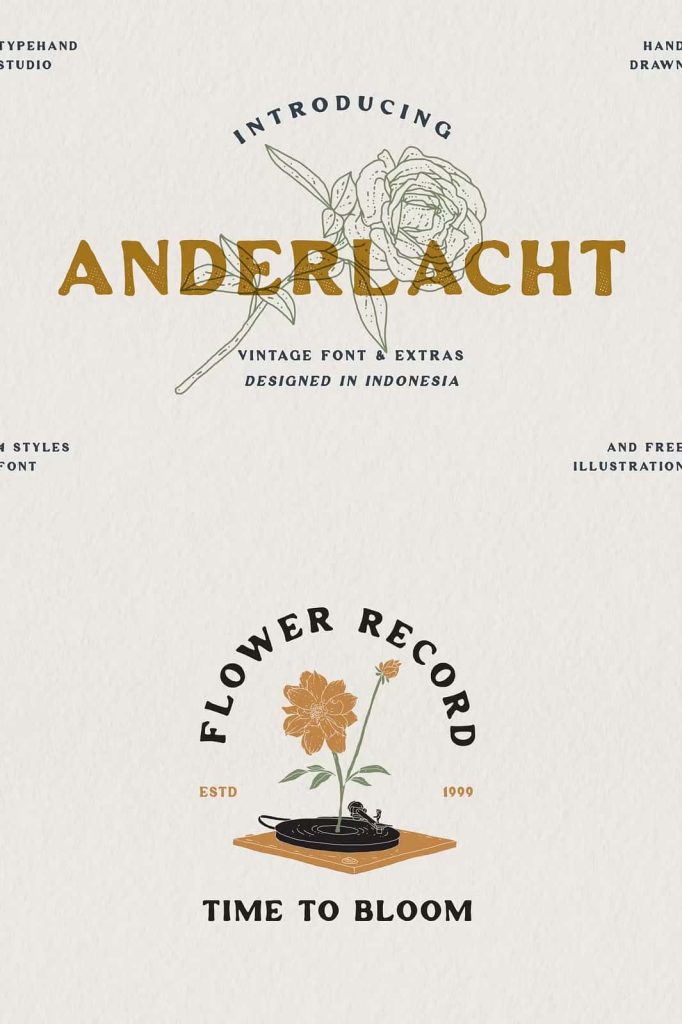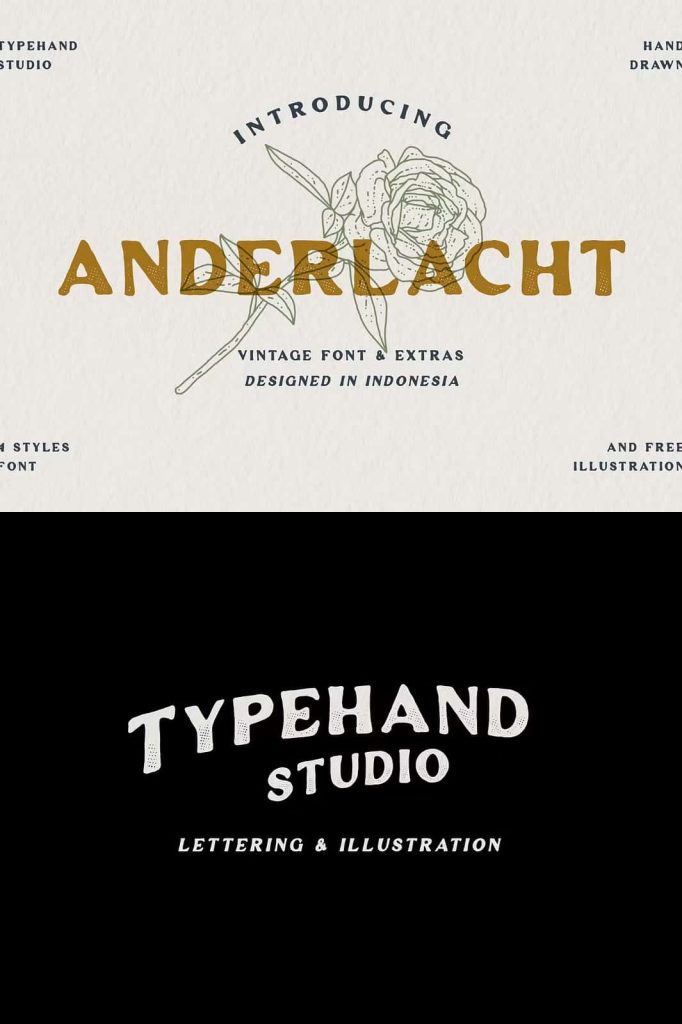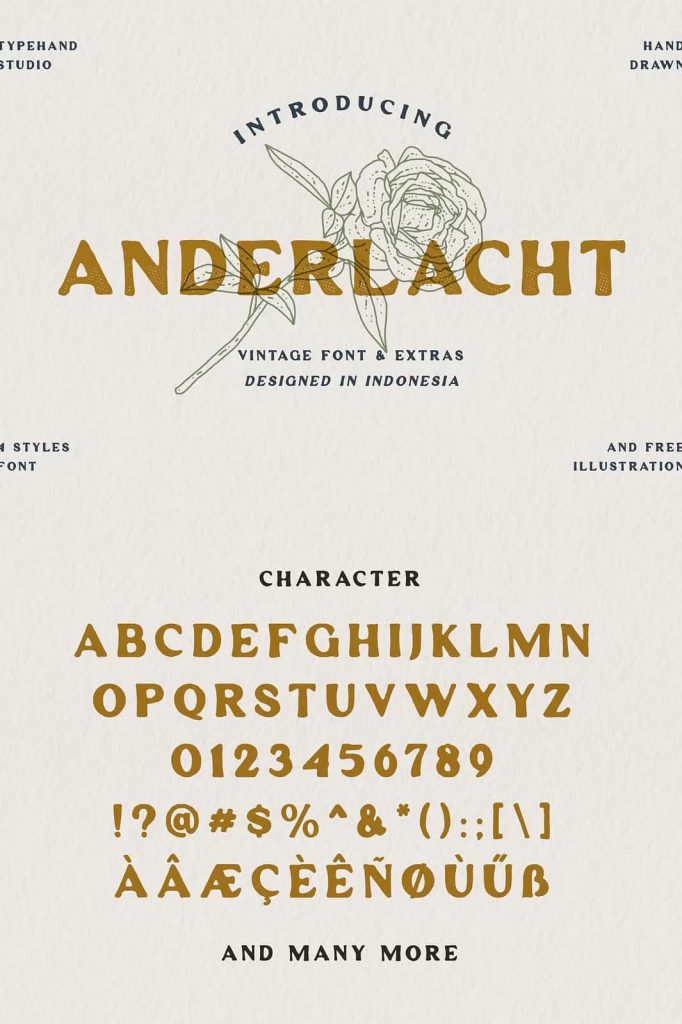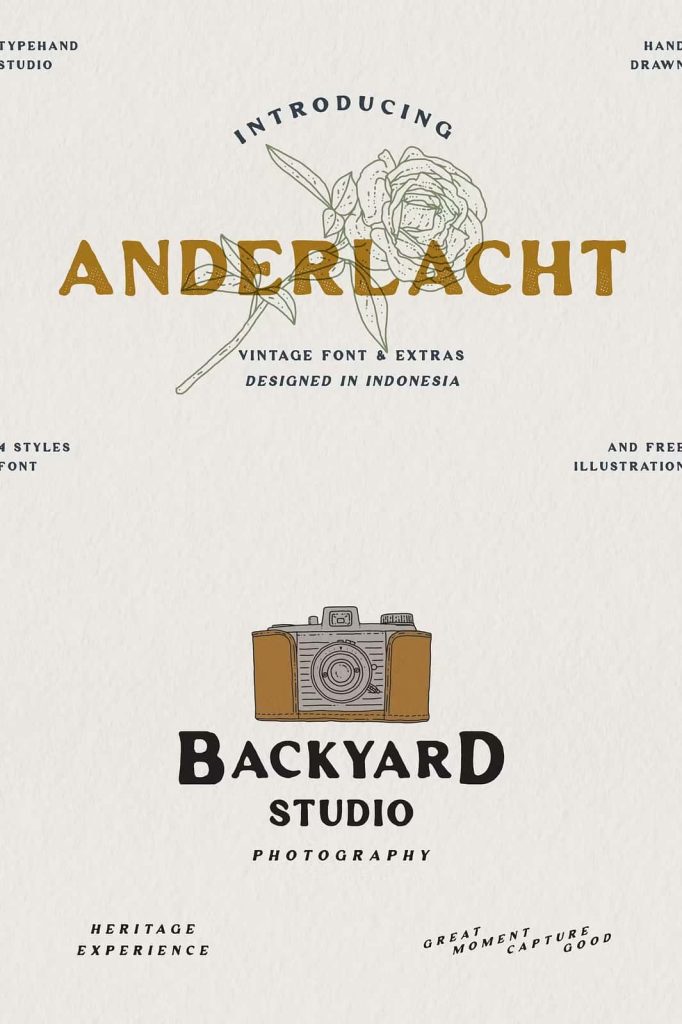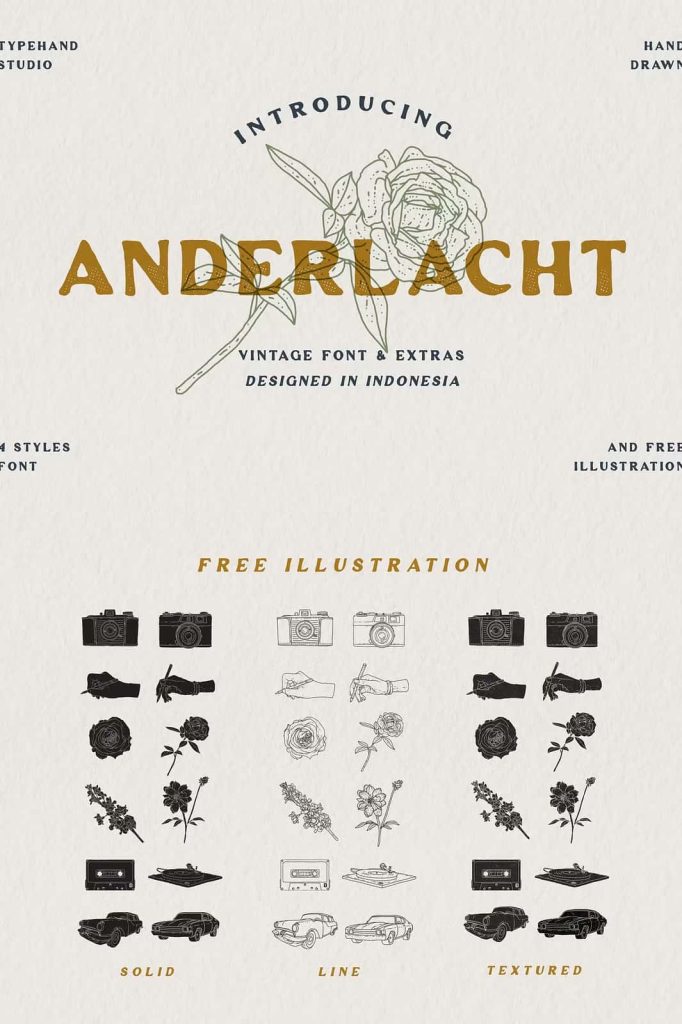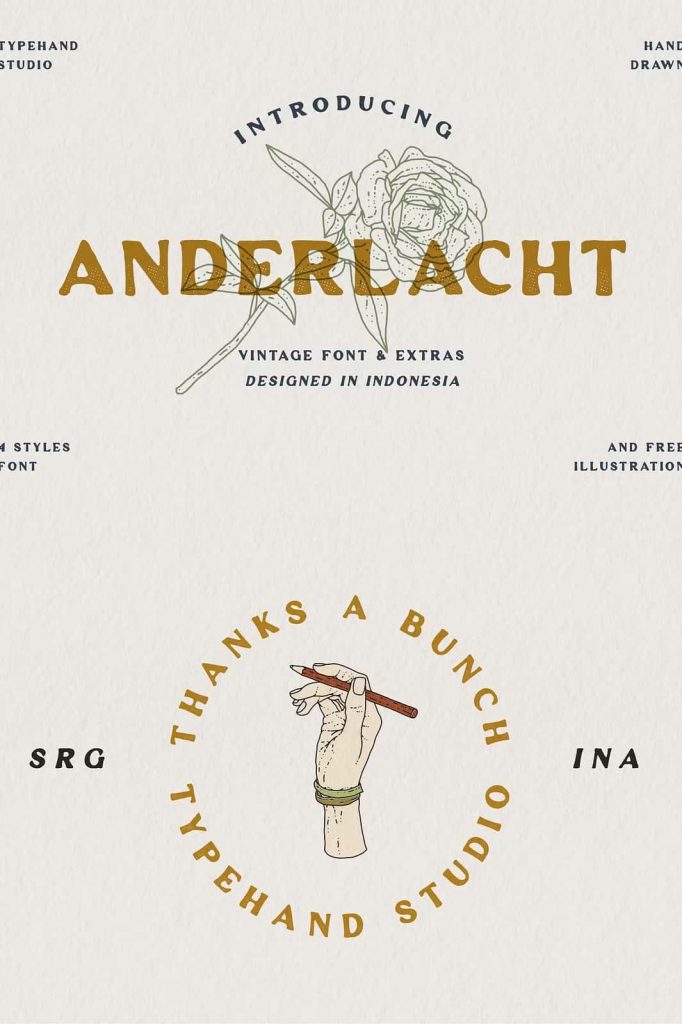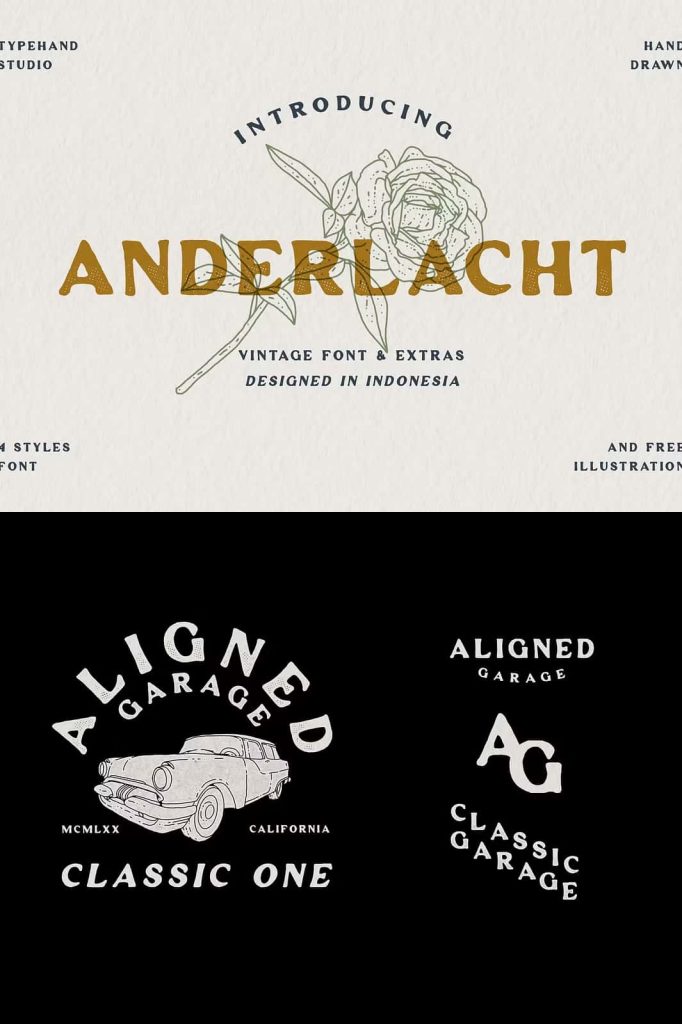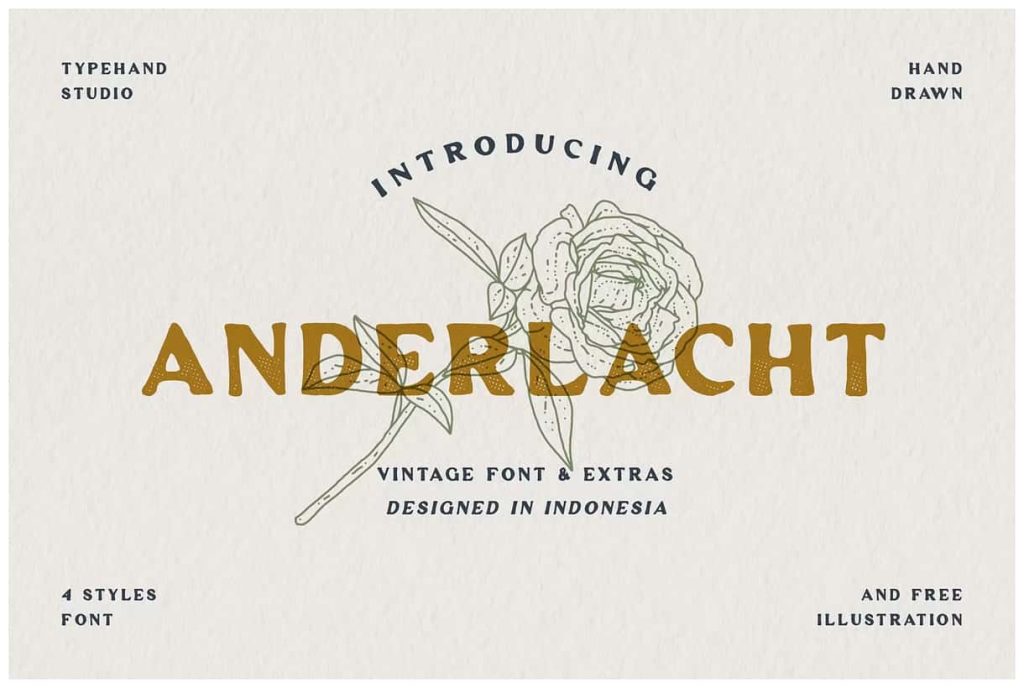
Anderlacht – Vintage Serif + ExtrasleastedMay 6, 2025Fonts Anderlacht is a vintage serif font with a stamp texture that is perfect for quotes Download